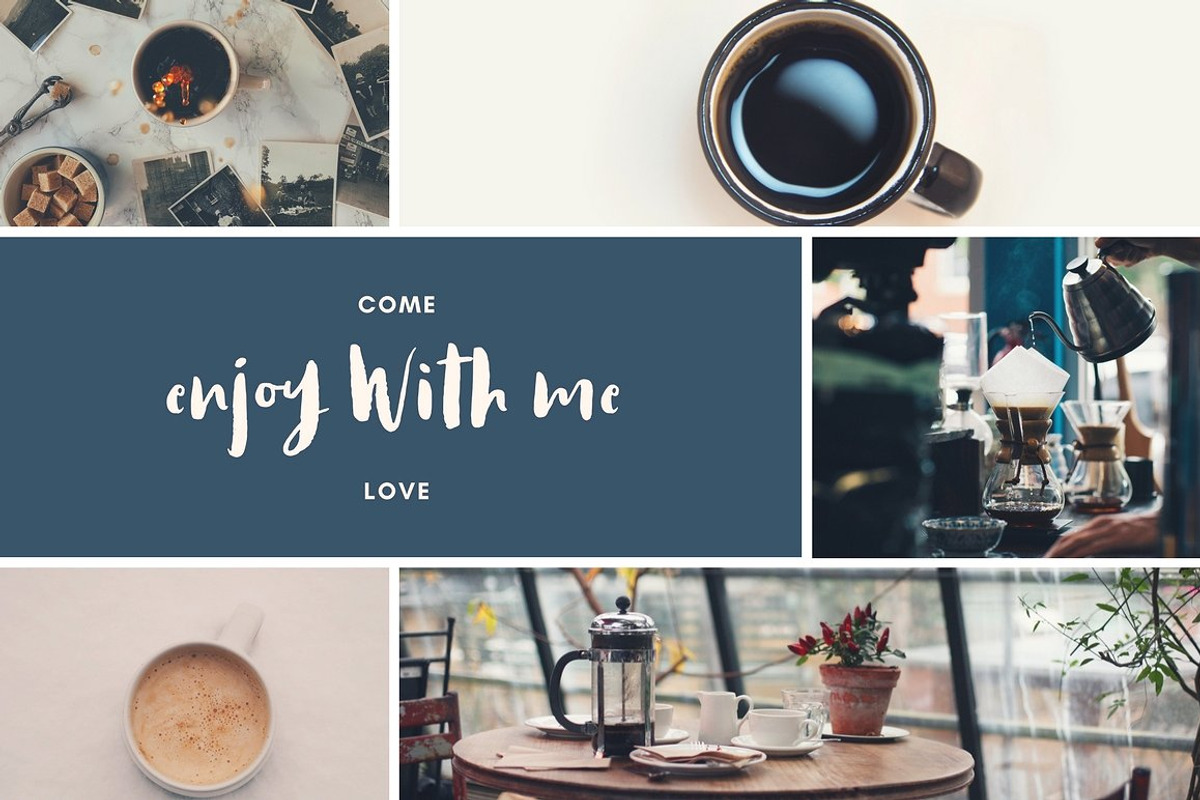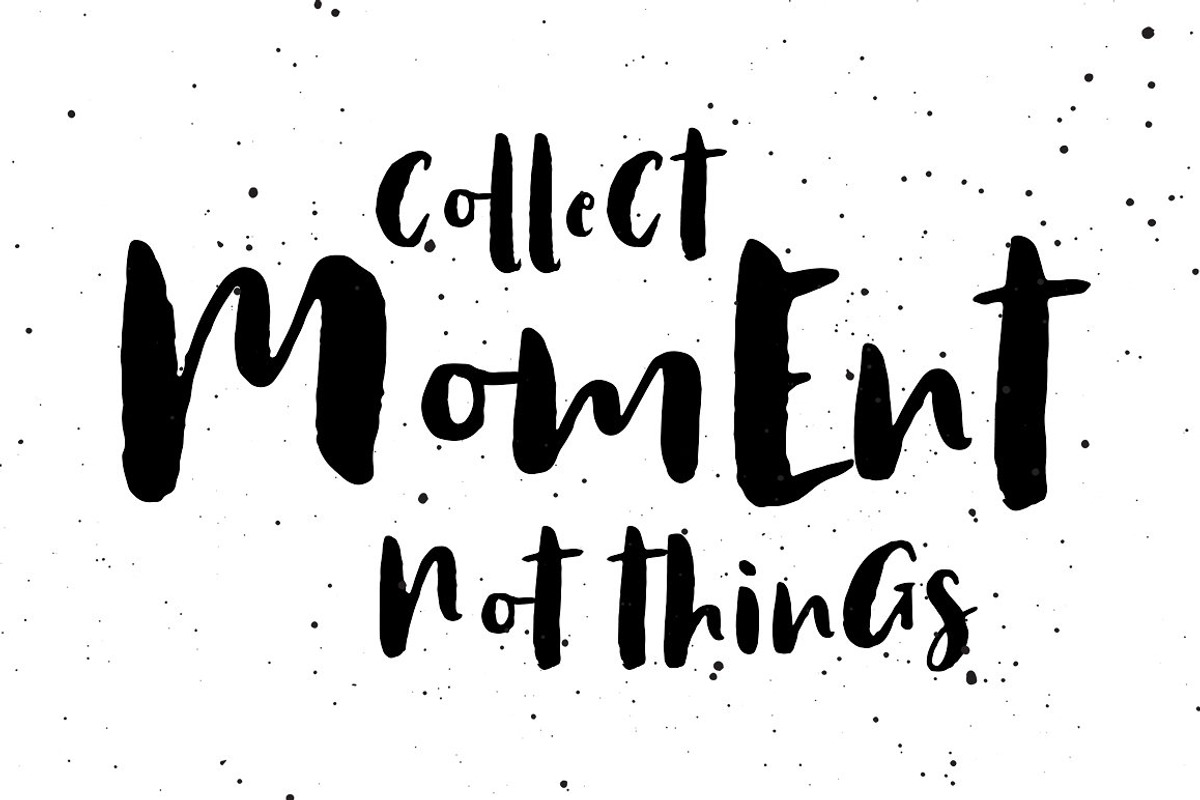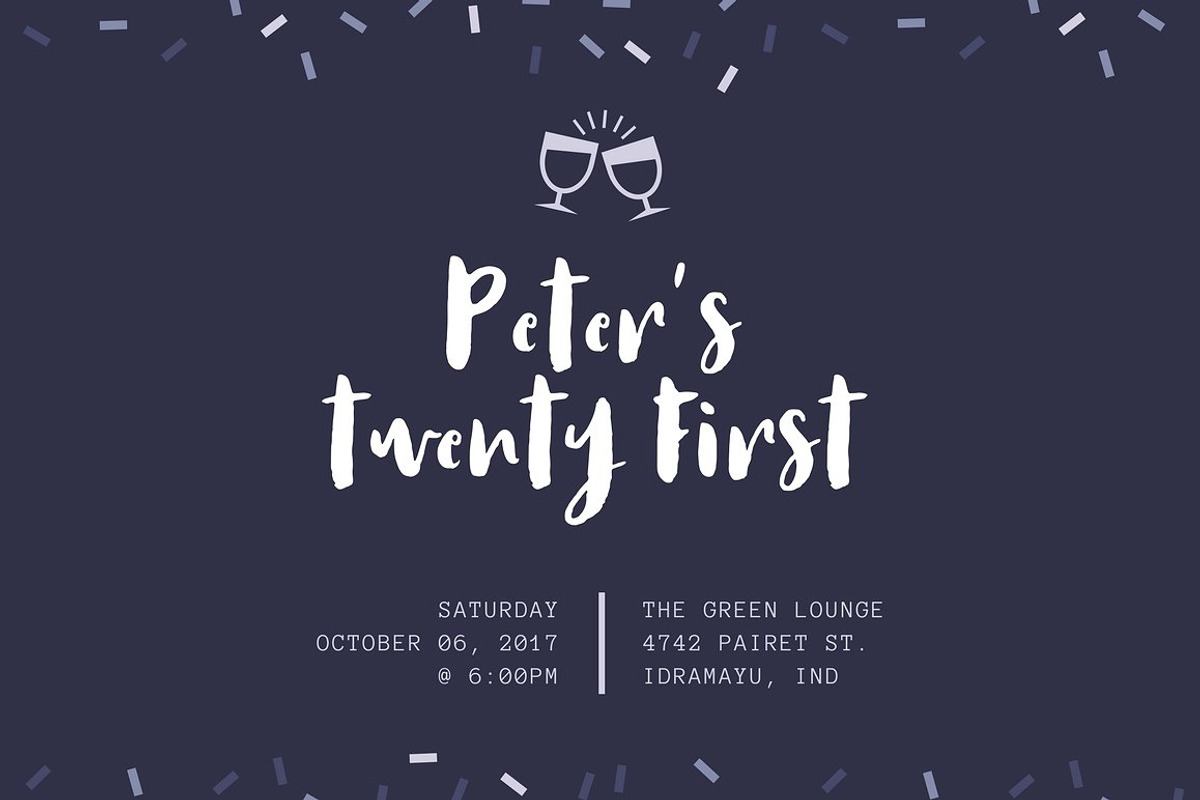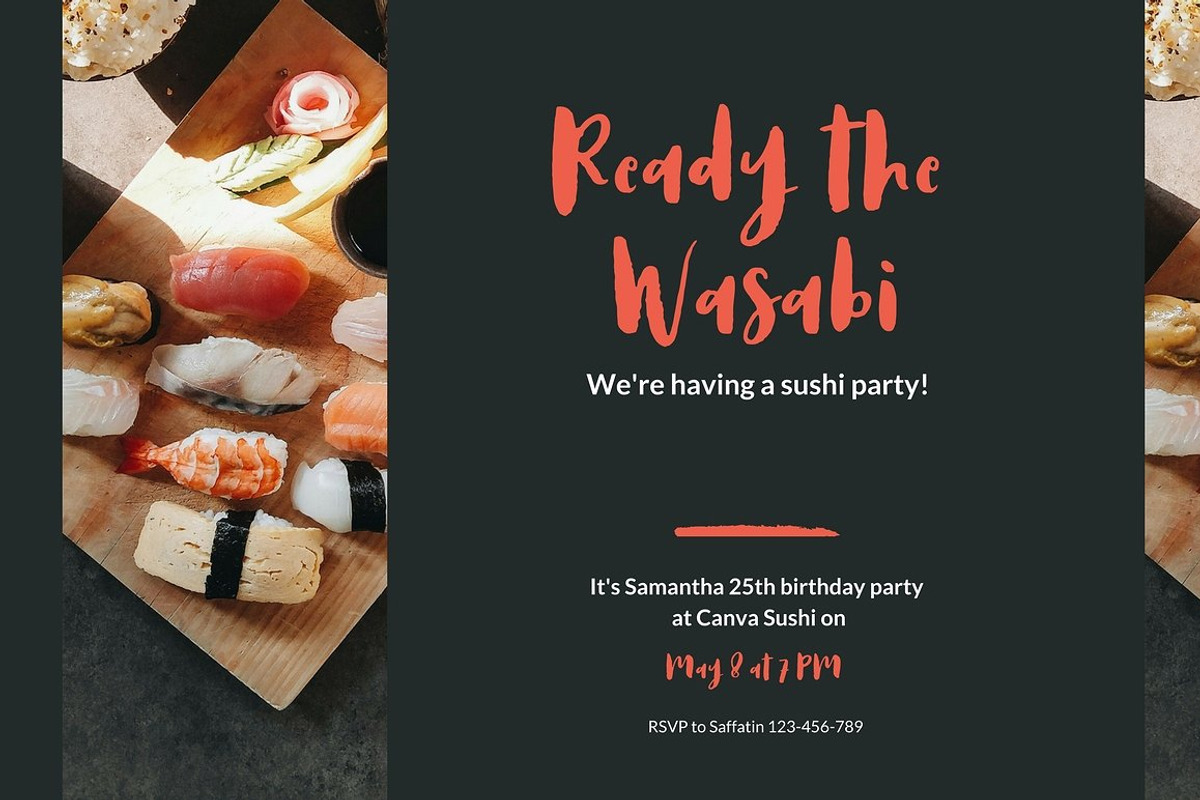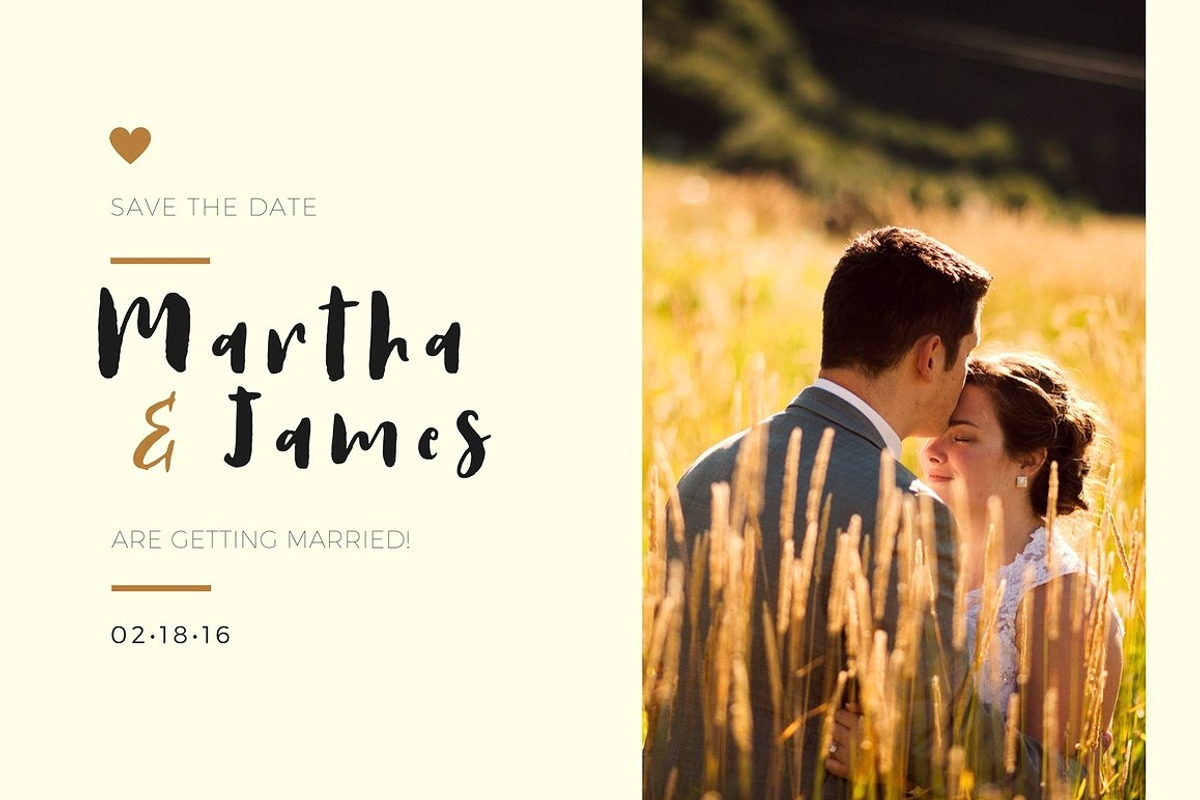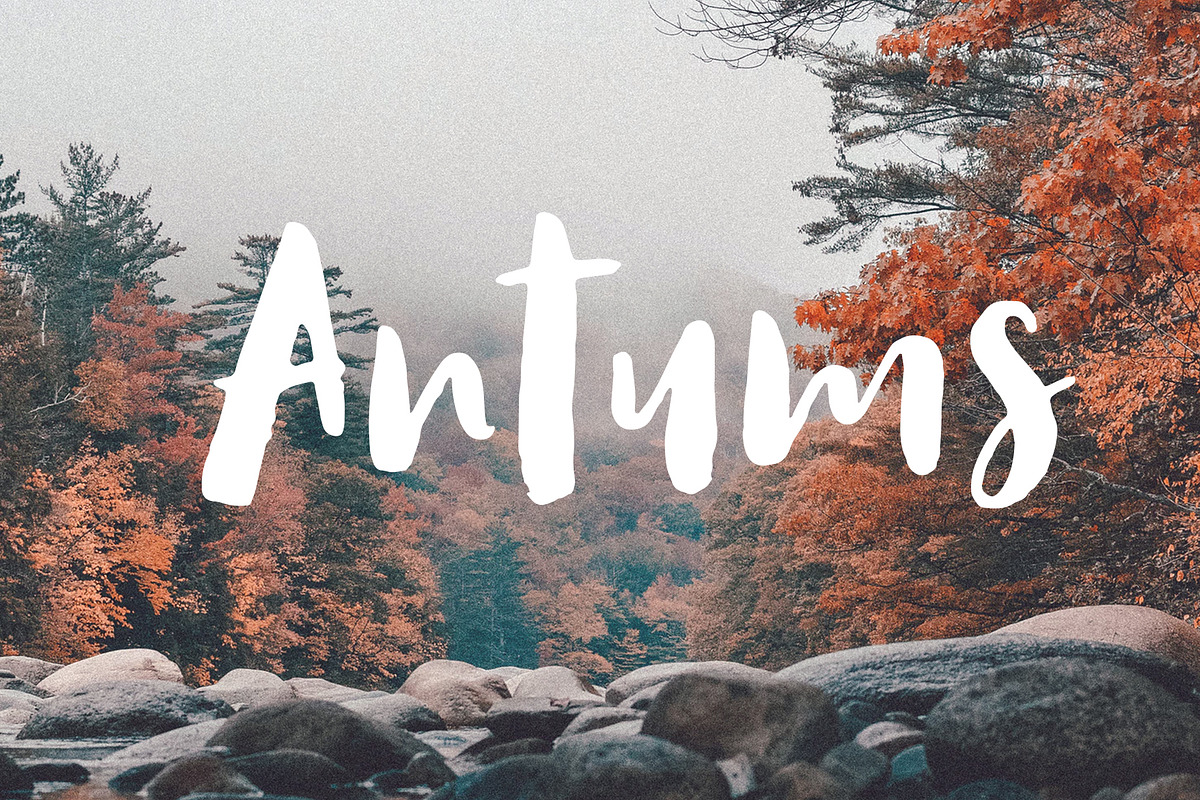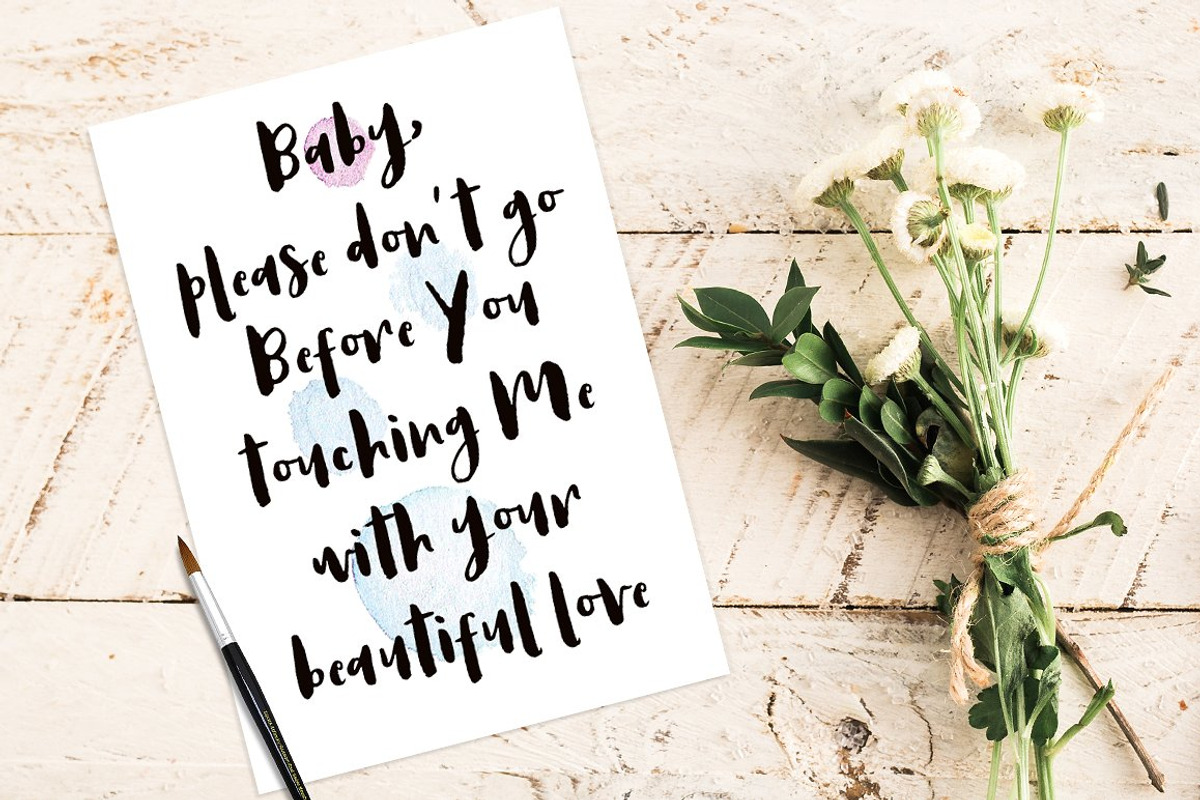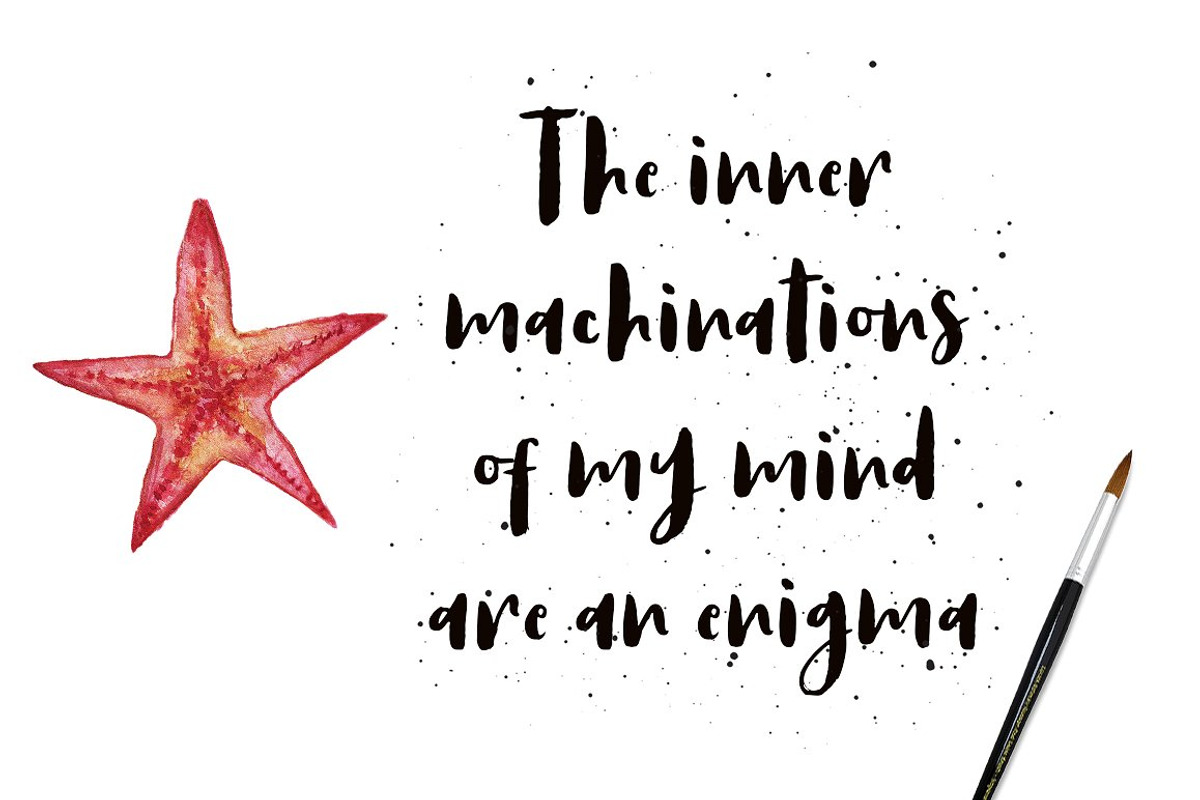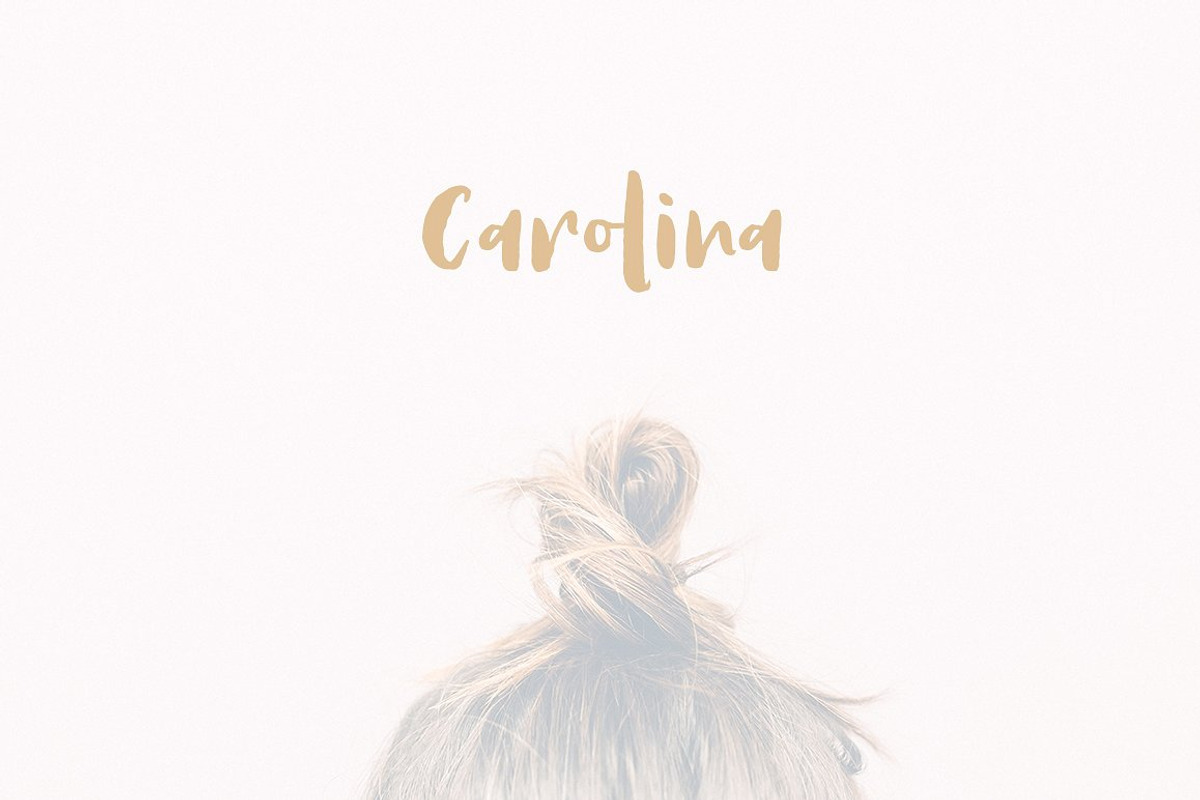
Antums Brush
Introducing Antums Brush Fonts
A handrawn brush font style, designed especially for you. For designers, instagramers, bloggers, youtubers, fashion lovers or somebody who Loves Fresh design.
Every creative love something new. Thats why We love handmade and freestyle designs, because it will make us look Unique and Fresh. Antums Brush Fonts ready to make your design shining and sparkling..
Antums Brush Fonts suitable for any modern design such as for ad banner, modern card, invitation, announcement, seasonal design, social media promotion, web design, branding and logo stylist and many more.